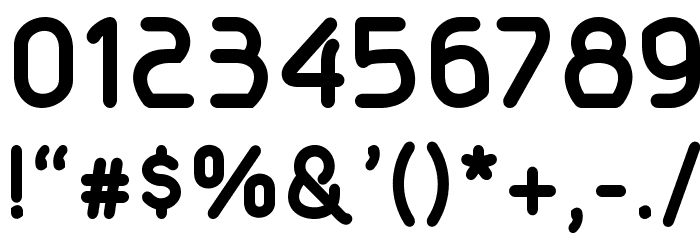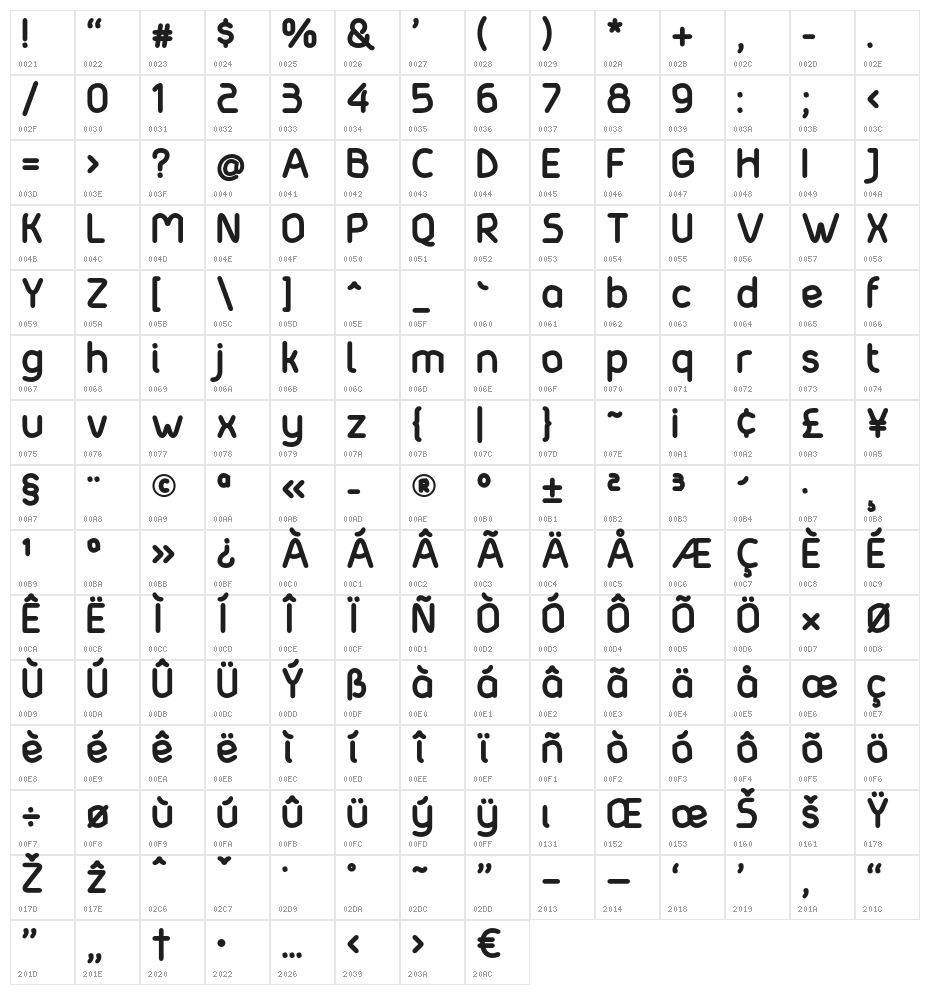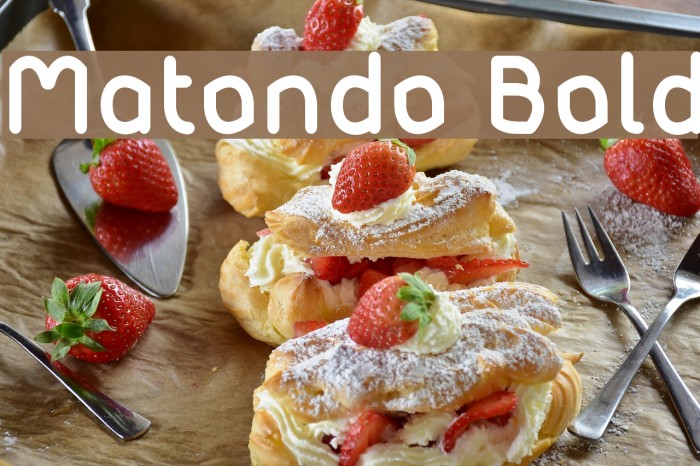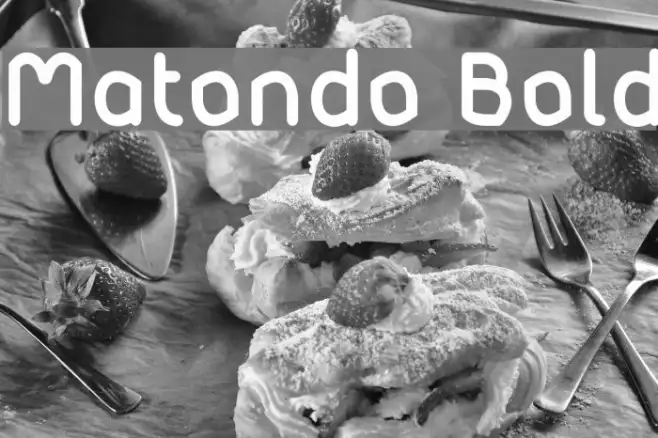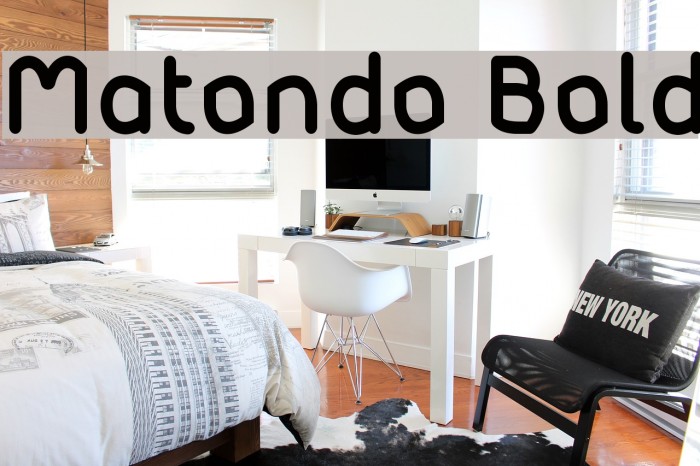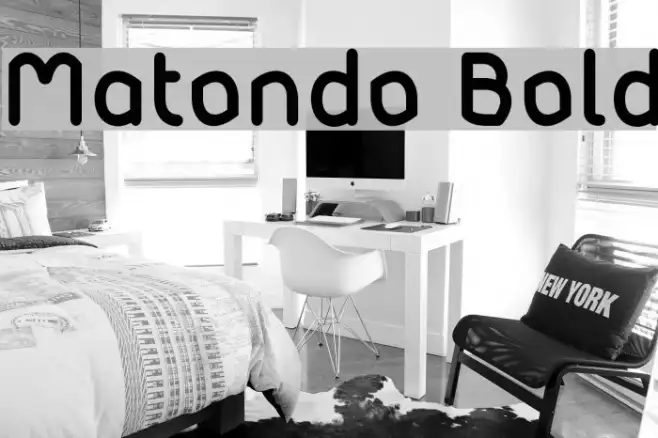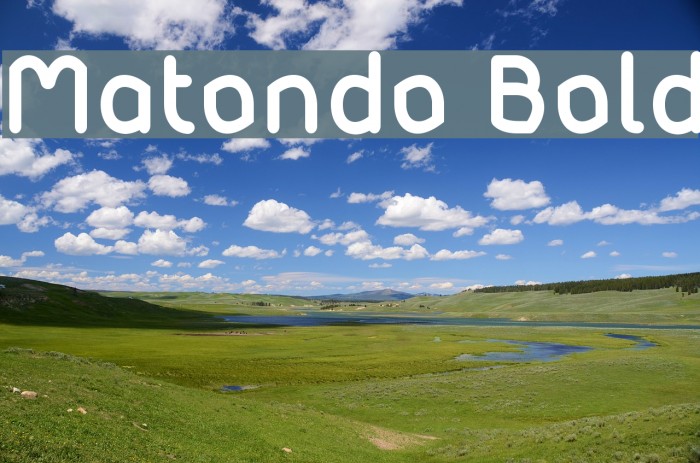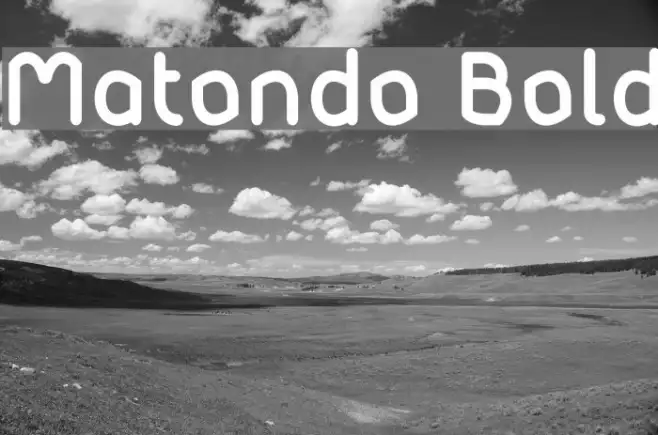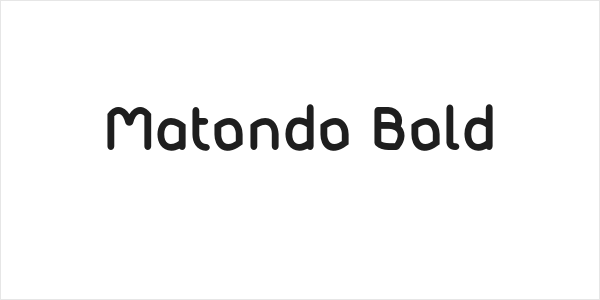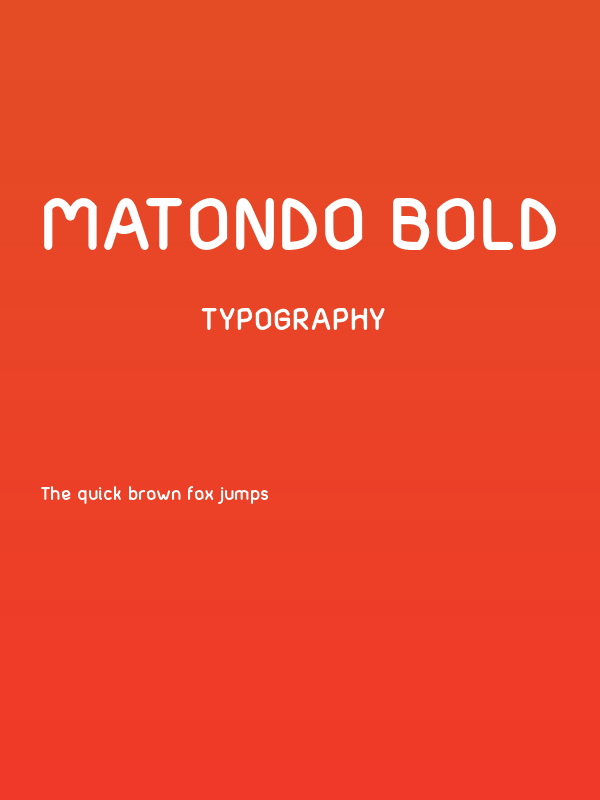
Matondo Bold Font
Matondo Bold Description
This font features a bold and rounded style with a modern and friendly appearance. The characters have a uniform thickness, contributing to a clean and approachable look. The rounded edges soften the overall feel, making it suitable for a variety of applications. The numerals and special characters maintain the same rounded and bold characteristics, ensuring consistency across all glyphs. Its legibility and distinct style make it a versatile choice for both digital and print media.
| Proposed Projects | Ideal for branding, children's books, educational materials, and digital interfaces. |